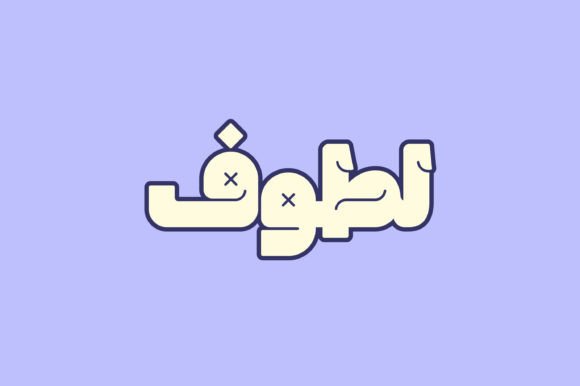
Unleash your creative genius with Lattouf, the Arabic display font that exudes both boldness and a playful charm. This font is not just a collection of letters; it's an artistic voyage into a world of elegance and uniqueness.
Immerse yourself in the world of typography and logo design, where Lattouf becomes your trusted companion. Its heavy structure, meticulously crafted by the visionary Mostafa El Abasiry, commands attention and leaves a lasting impression. Each stroke, each curve, each letterform is a testament to the power of visual communication.
With Lattouf, your designs transcend the ordinary and embark on an extraordinary journey. Its humorous style adds a touch of lightheartedness, ensuring that your creations resonate with audiences on a deeper level. Whether you're crafting logos, designing websites, or creating marketing materials, Lattouf becomes your secret weapon, elevating your work to new heights.
Explore the endless possibilities of web design, print, branding, and advertising with Lattouf as your guide. Its versatility knows no bounds, allowing you to experiment with different styles and techniques without compromising on quality. From sophisticated branding projects to eye-catching advertisements, Lattouf adapts seamlessly, becoming an integral part of your creative vision.
Embrace the beauty of Arabic calligraphy with Lattouf, a font that pays homage to the rich cultural heritage of the Middle East. Its intricate details and expressive letterforms capture the essence of traditional Arabic script, adding an air of authenticity and timeless elegance to your designs. Whether you're creating posters, brochures, or invitations, Lattouf becomes the voice of your message, conveying it with eloquence and grace.
Step into the realm of modern creative projects and let Lattouf be your muse. Its heavy structure, humorous style, and unwavering elegance unite to form a font that captivates and inspires. As you bring your creative vision to life, Lattouf becomes more than just a font; it becomes an extension of your artistic self, empowering you to leave an indelible mark on the world of design.